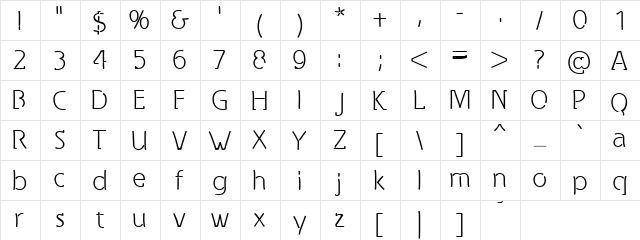
Spongy Regular Free Font
Spongy Regular
Design Context for Spongy
Spongy is a composed and adaptable typeface that performs quietly and consistently across a wide range of design contexts.
Pro Tip: Use Spongy in both headline and body roles to test its range before committing to a single application.